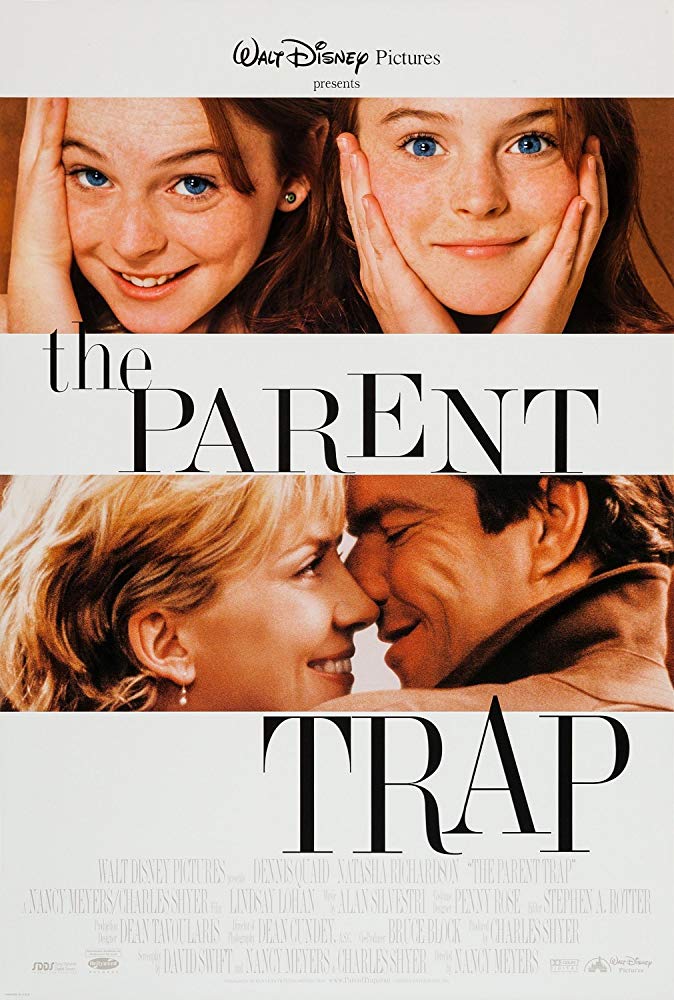
The Parent Trap Font
ComedyThe Parent Trap is a 1998 American romantic comedy-drama film directed by Nancy Meyers, starring Lindsay Lohan, Dennis Quaid, and Natasha Richardson. It tells the story of identical twin sisters who reunite at a summer camp and try to reunite with their parents.
The poster for the film displays the title in the Torino font, which is from URW. Torino is a serif font with strong contrast, originally created by the Nebiolo foundry in Turin in 1908. The URW digitization includes only one Roman style, and more information can be found here.